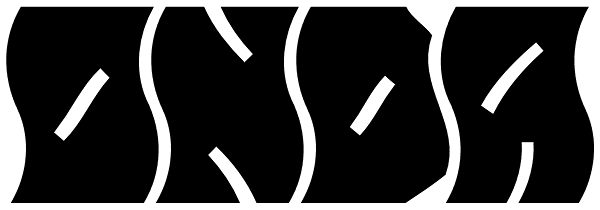
Onda
Onda is a display typeface based on a synthesis of curvilinear nostalgic spirit leads us to a new psychedelia words are immersed in the spirit of the 60s. Onda is provided "style forms" to small caps, in both its Regular and Italic. Its use is...